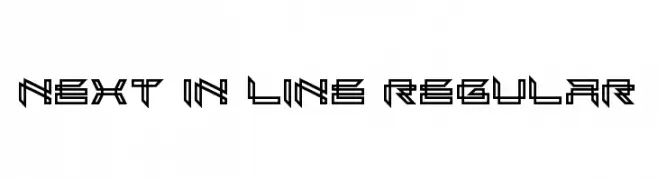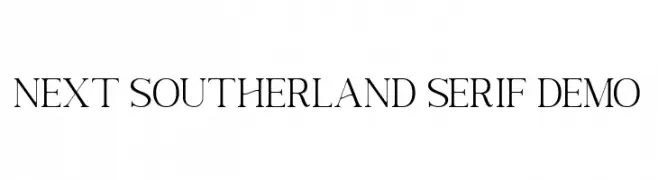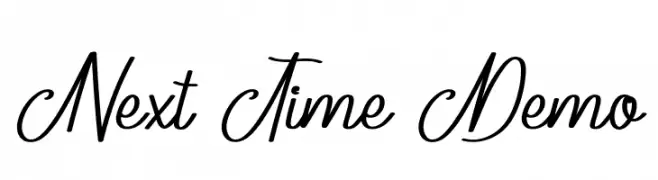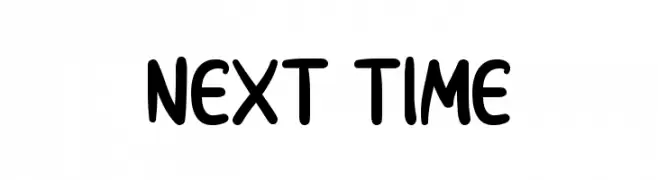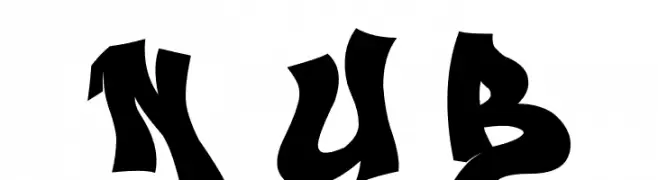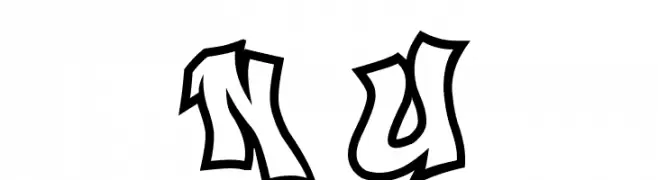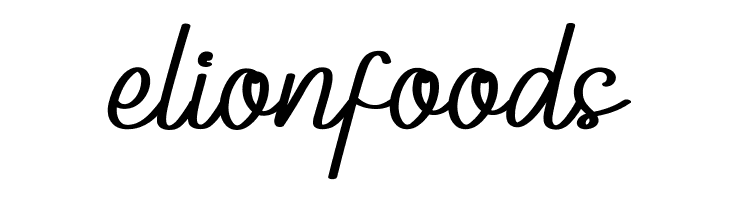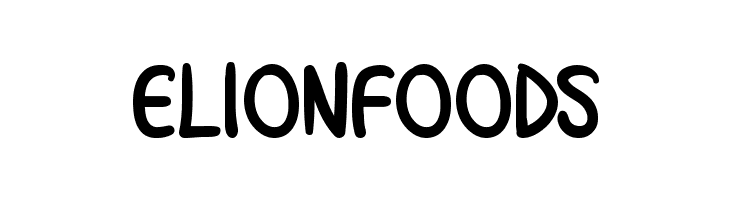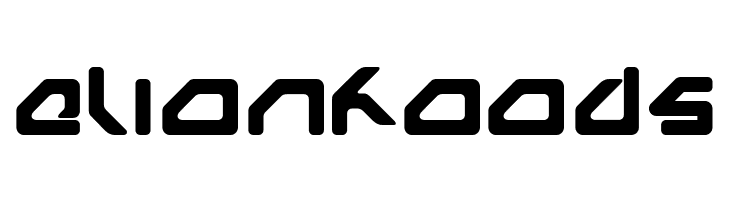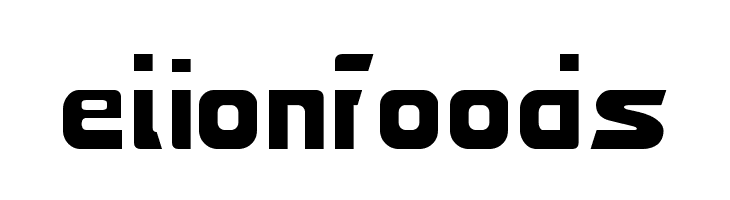
A futuristic, geometric font with bold, angular lines.
A dynamic and elegant script font with fluid, cursive letterforms.
An elegant serif font with elongated strokes and sharp serifs, blending classic and modern styles.
Handwritten, rounded sans-serif with playful character.
A flowing cursive font with elegant loops and smooth transitions.
A bold, graffiti-style font with sharp, angular letterforms and a dynamic, street-art aesthetic.
A bold, graffiti-inspired font with sharp, angular edges and dynamic styling.
A bold, futuristic font with geometric shapes and sharp angles.
A modern, geometric sans-serif font with clean lines and balanced proportions.